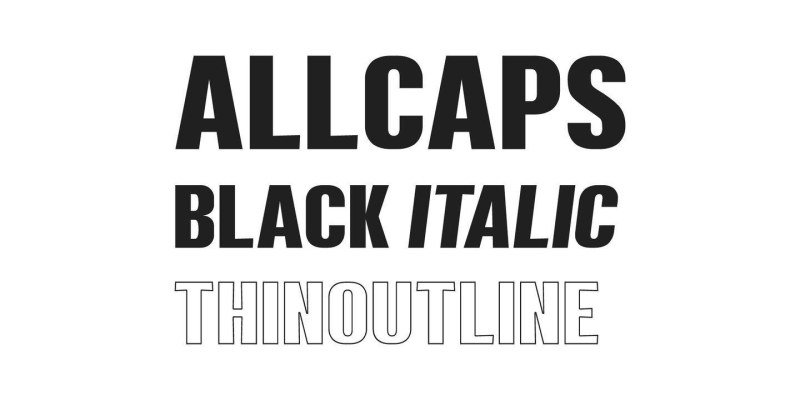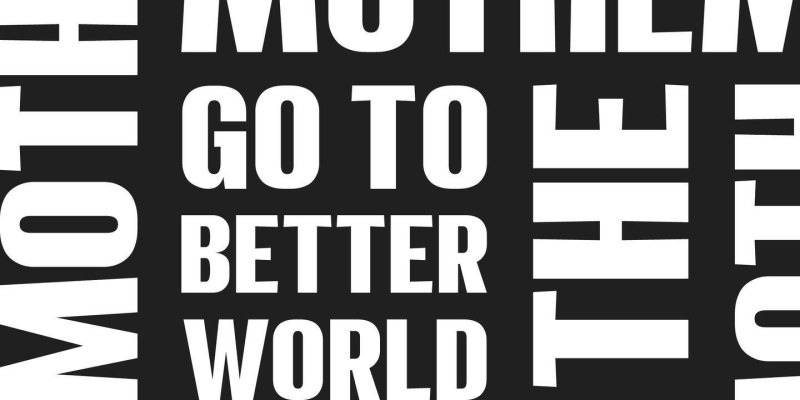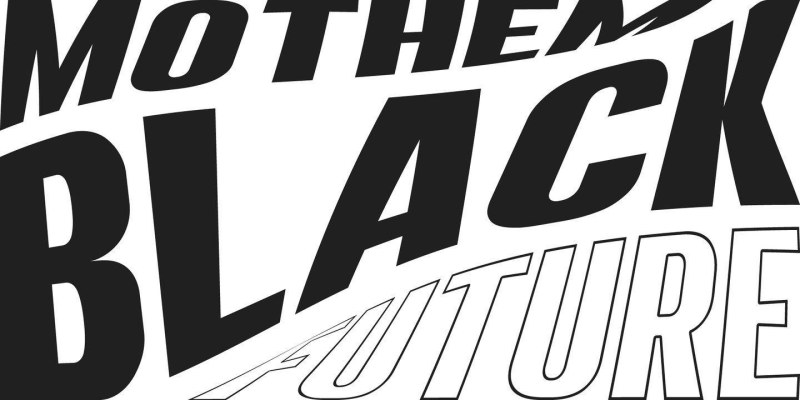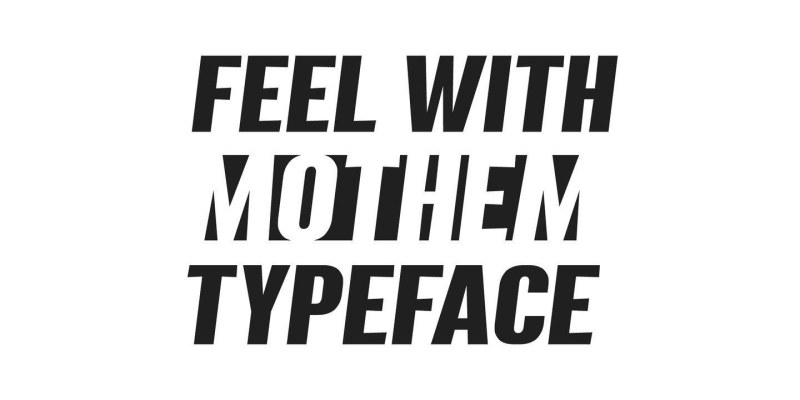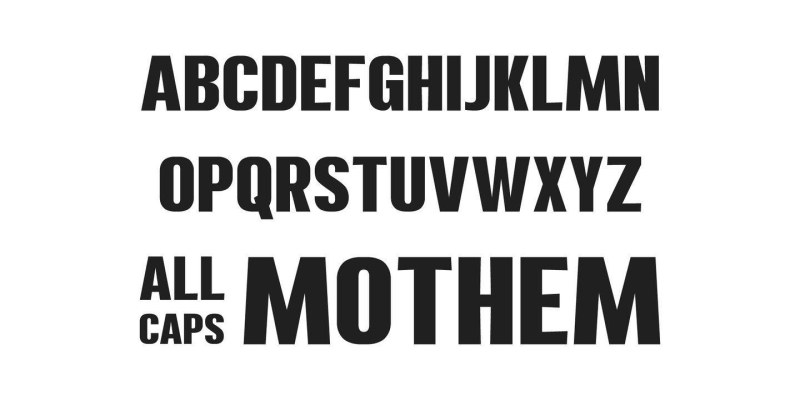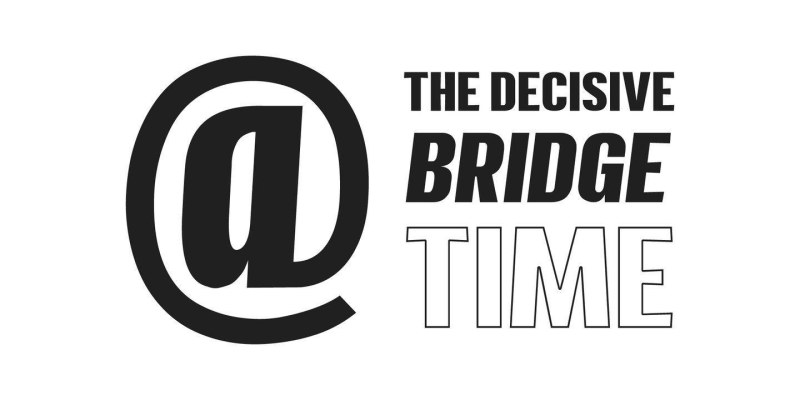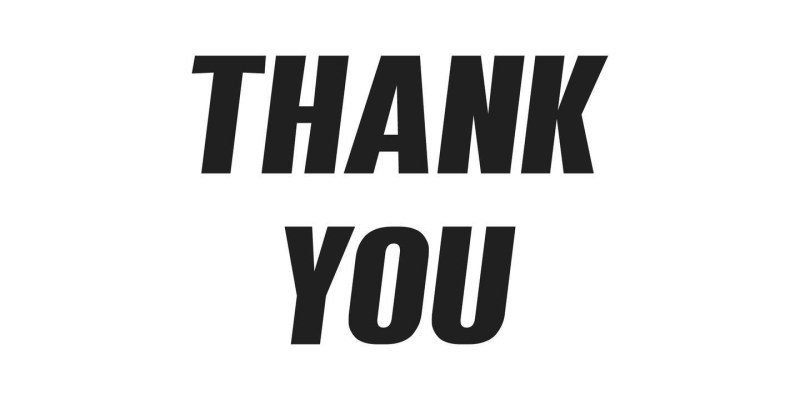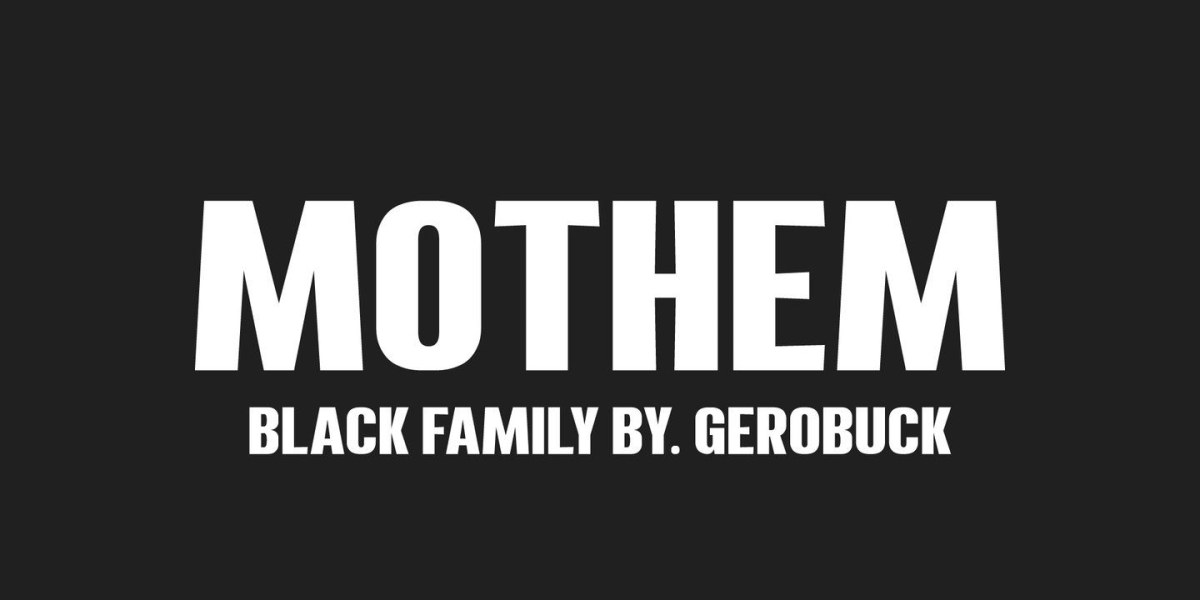
Mothem Font Family
MOTHEM font family with three modes, Black, ItalicBlack, and ThinOutline and supported by multiligual features. The shape has a sporty, strong, and futuristic impression…
MOTHEM font family with three modes, Black, ItalicBlack, and ThinOutline and supported by multiligual features. The shape has a sporty, strong, and futuristic impression, very perfect for classy designs.
Where Mothem Font Family works best
Mothem Font Family stays legible at small sizes, which makes it a strong choice for navigation, buttons and dashboards in web design and app interfaces.
Clean sans serifs like Mothem Font Family are the default language of SaaS, fintech and product branding.
What is Mothem Font Family good for?